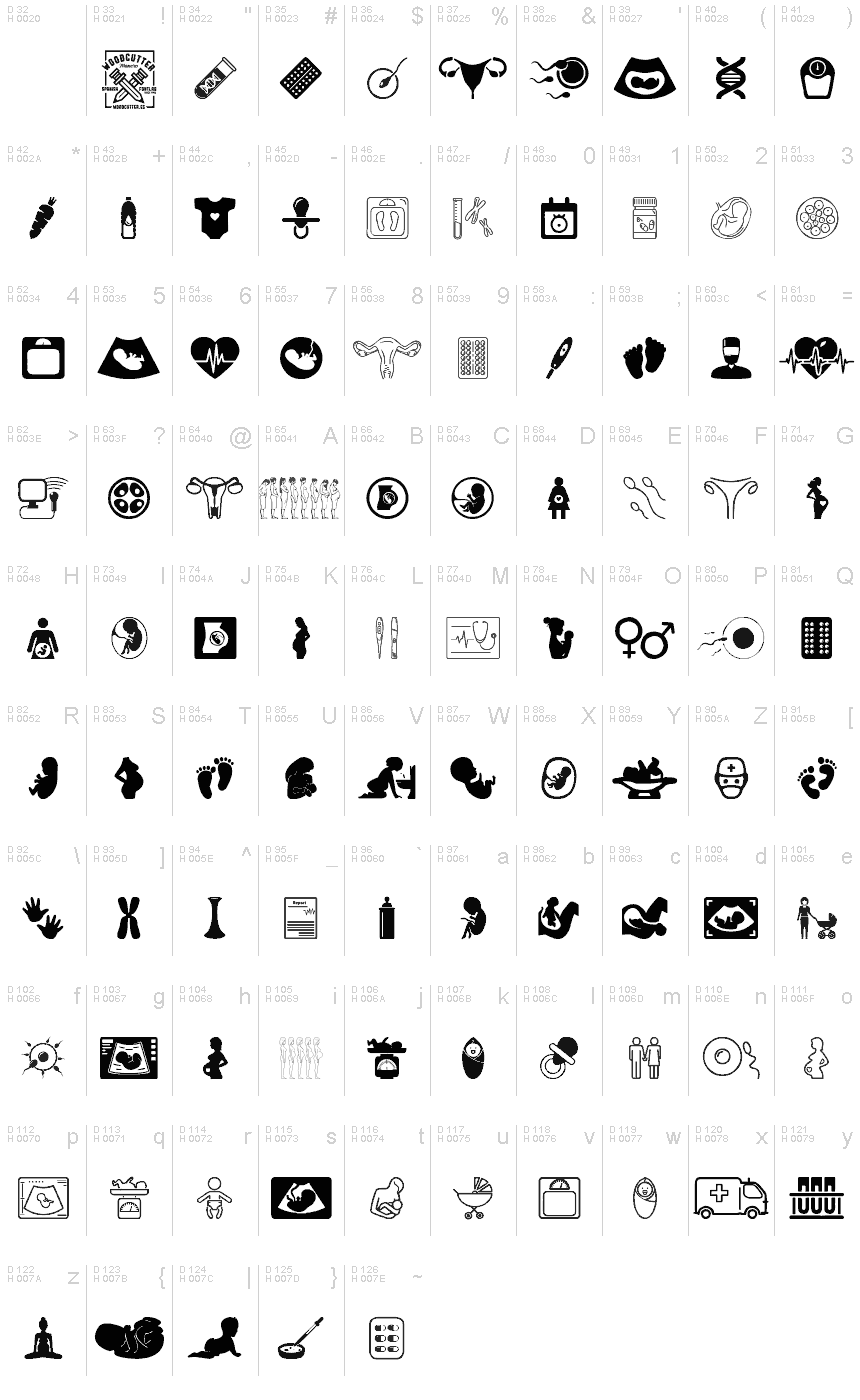
Pregnancy
Pregnancy is a dingbats font designed by Woodcutter Manero that exudes a delicate, whimsical charm. The icons and symbols within this typeface are reminiscent of the journey of pregnancy, featuring representations of expectant mothers, babies, and maternity-related imagery.
The clean, minimalist lines and organic shapes lend a sense of elegance and simplicity, making Pregnancy a versatile choice for a wide range of design applications, from baby showers and birthing announcements to pregnancy-themed websites and packaging.
Its unique character set allows designers to seamlessly integrate thoughtful, meaningful elements into their projects, creating a visually captivating and emotionally resonant final result.